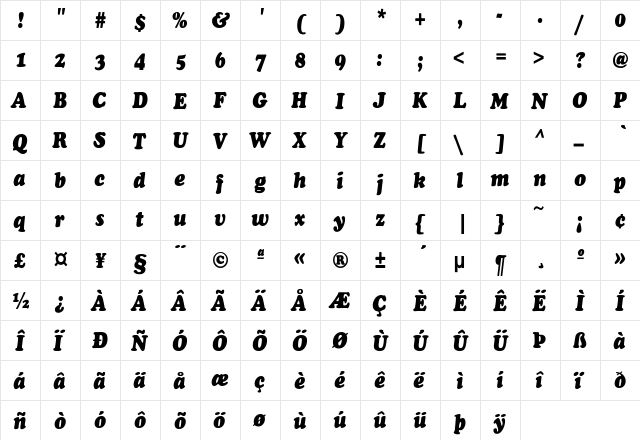
ChaceyCnd-Heavy-Italic Regular
Design Context for ChaceyCnd-Heavy-Italic Typeface
ChaceyCnd-Heavy-Italic takes a measured approach to typography — its balanced proportions and neutral character make it a reliable workhorse for both digital and print work. Its italic angle brings a sense of urgency and motion to the letterforms.
Pro Tip: Try ChaceyCnd-Heavy-Italic for annotation and caption copy alongside an upright companion — the contrast in angle creates a dynamic but ordered typographic system.